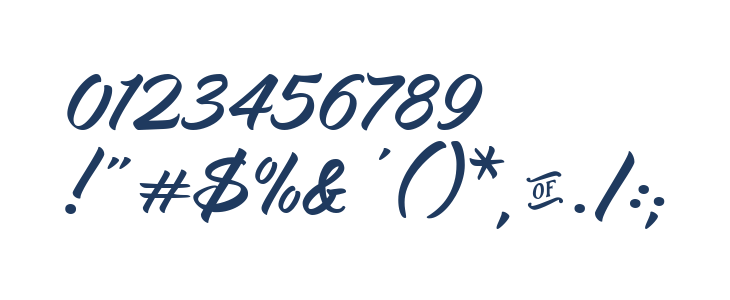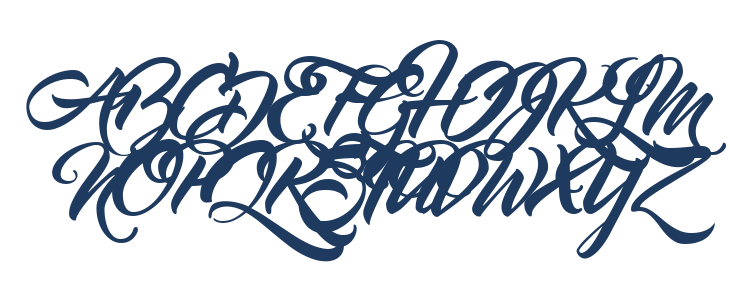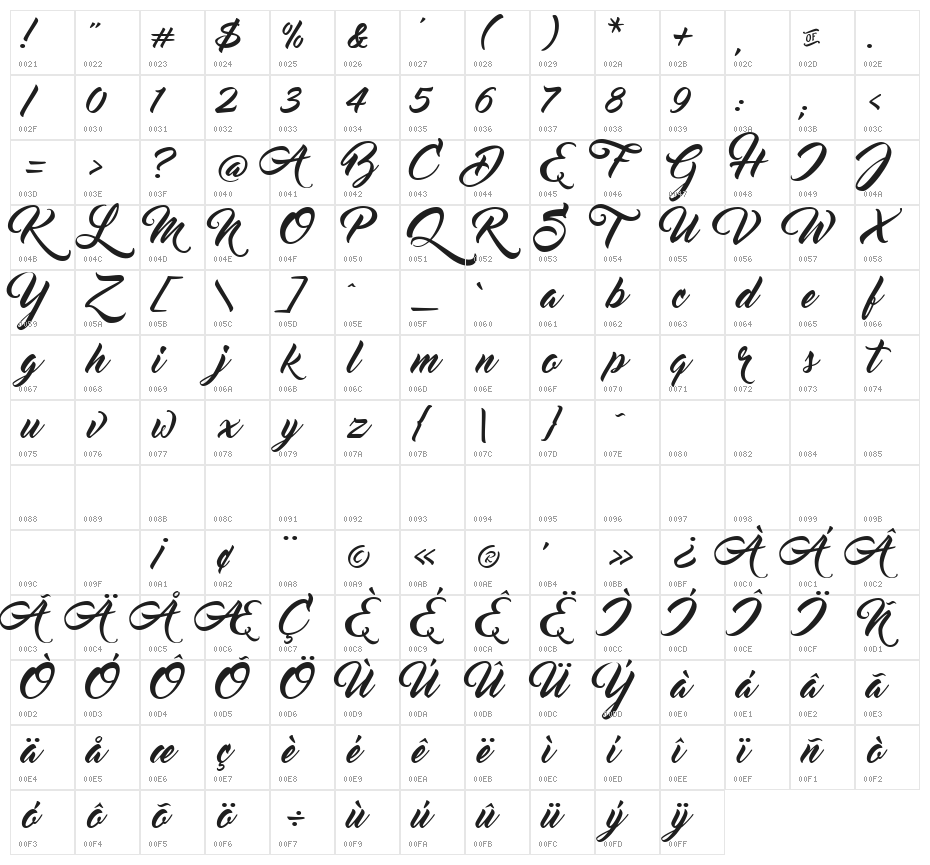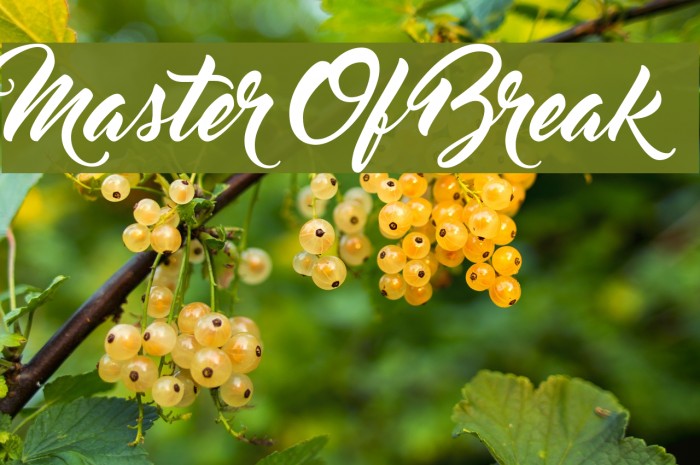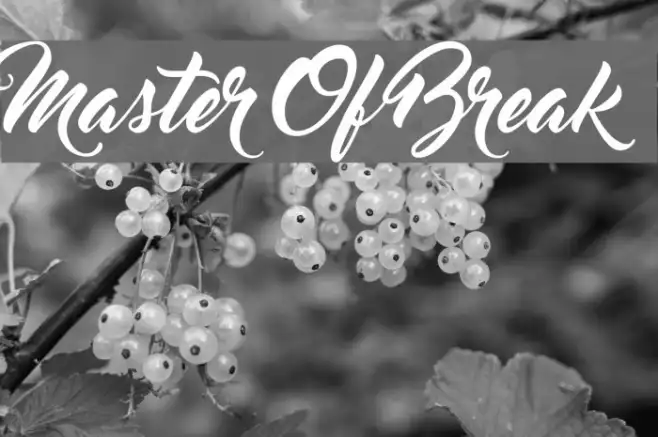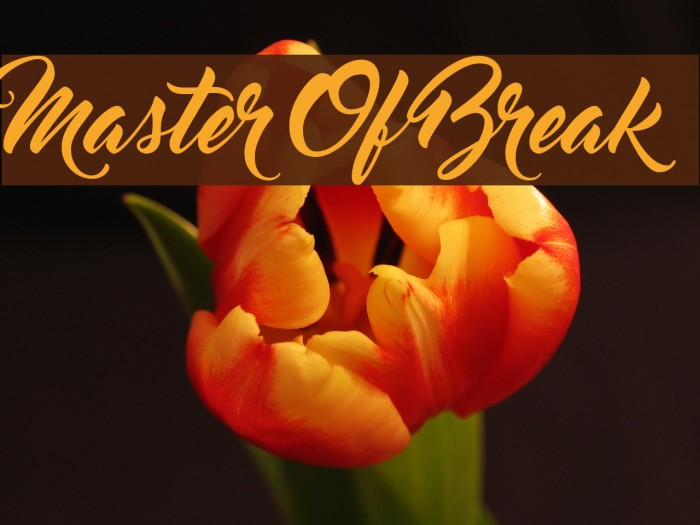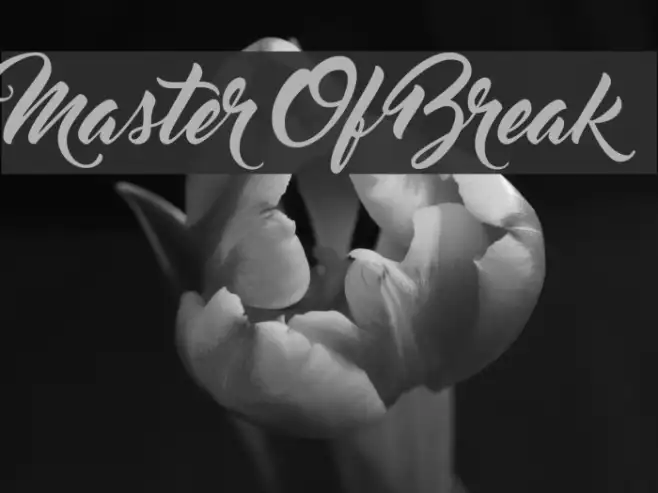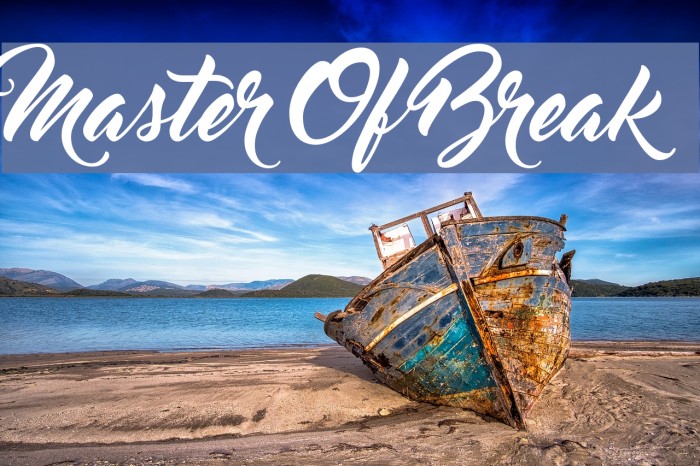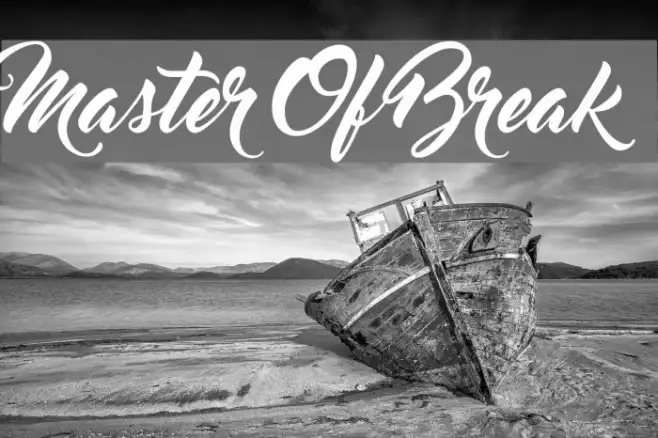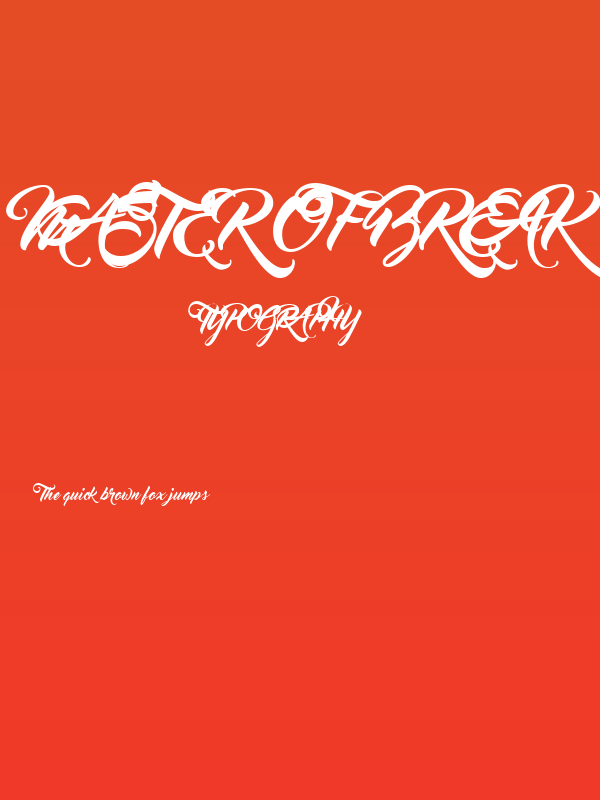
Master Of Break Font
Master Of Break Description
This font exudes a dynamic and expressive style, characterized by its flowing, cursive script that mimics the fluidity of handwriting. The uppercase letters are bold and ornate, with intricate loops and swirls that add a touch of elegance and sophistication. The lowercase letters maintain a consistent style, offering a harmonious blend of curves and angles that enhance readability while retaining an artistic flair. The numerals are equally stylized, ensuring they complement the overall aesthetic. Special characters are thoughtfully designed to match the font's energetic and creative vibe, making it suitable for projects that require a personal and artistic touch.